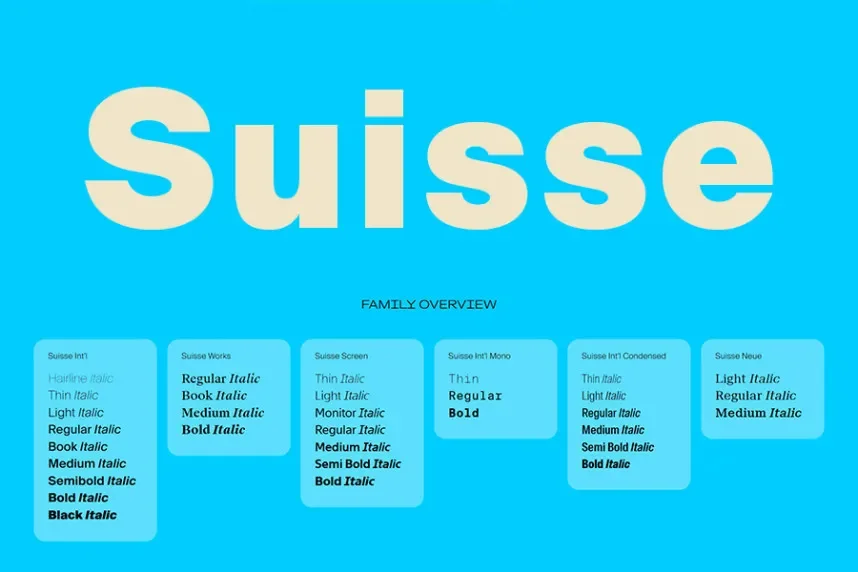
Suisse Font Family solves consistency issues in branding and editorial design where neutral typography is required. Many sans-serif fonts struggle to balance readability across print and digital environments.
Suisse is a neo-grotesque sans-serif font family developed for clarity and structural balance. It features clean strokes, open counters, and consistent proportions across weights, supporting long-form text and interfaces.